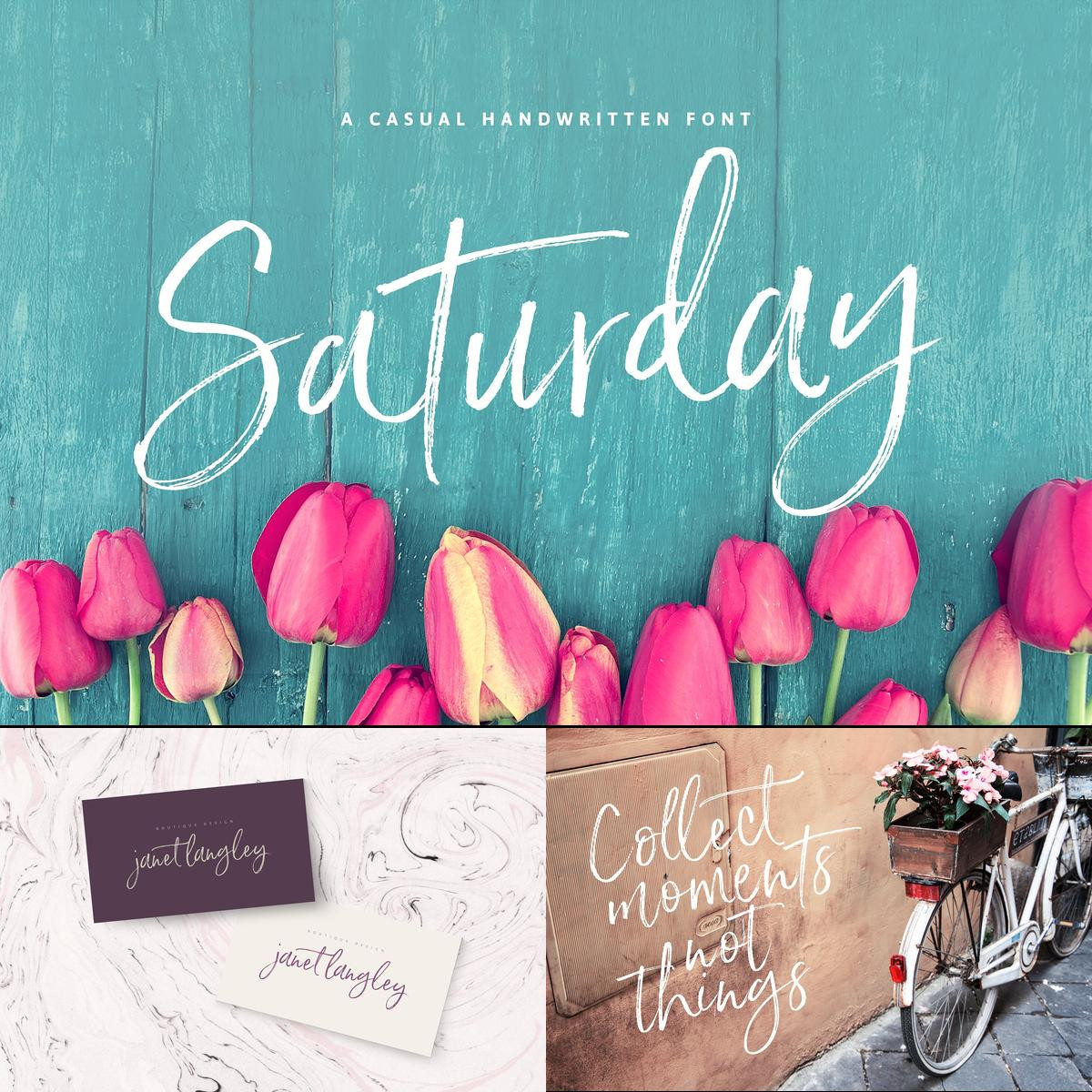
Say hello to **Saturday Script!** A a care-free, handwritten script with authentic tell-tale dry brush imperfections. **Saturday Script** has the added bonus of having **multiple personalities!** It has **2 sets of extra alternate lowercase letters**, which allow you to create different feels for different projects. Whether you need flaunty & loud or soft & romantic theres a letter combination to get the look you want